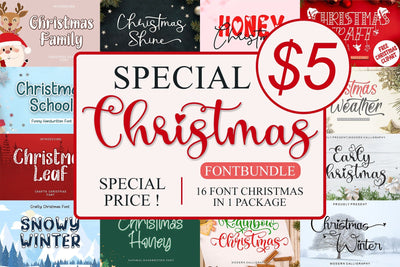
SPECIAL CHRISTMAS FONTBUNDLE
Special Christmas Fontbundle is a collection of my christmas fonts. 16 font in 1 package which contains modernscript fonts, handwritten font and display font. I sell at special prices, just $5.
that font is perfect for ; logos, greeting cards, a package design, a brand identity, craft design, any DIY project, book title, wedding invitation, packaging, another christmas project and more.